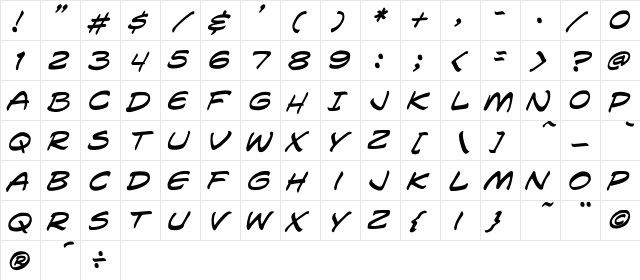
CCLosVampiros Medium Italic
CCLosVampiros is a composed and adaptable typeface that performs quietly and consistently across a wide range of design contexts. The dynamic lean of this cut emphasises speed and emphasis in any layout.
Pro Tip: Use CCLosVampiros for emphasis, pull quotes, and subheadings where its slanted energy can add rhythm to the layout.